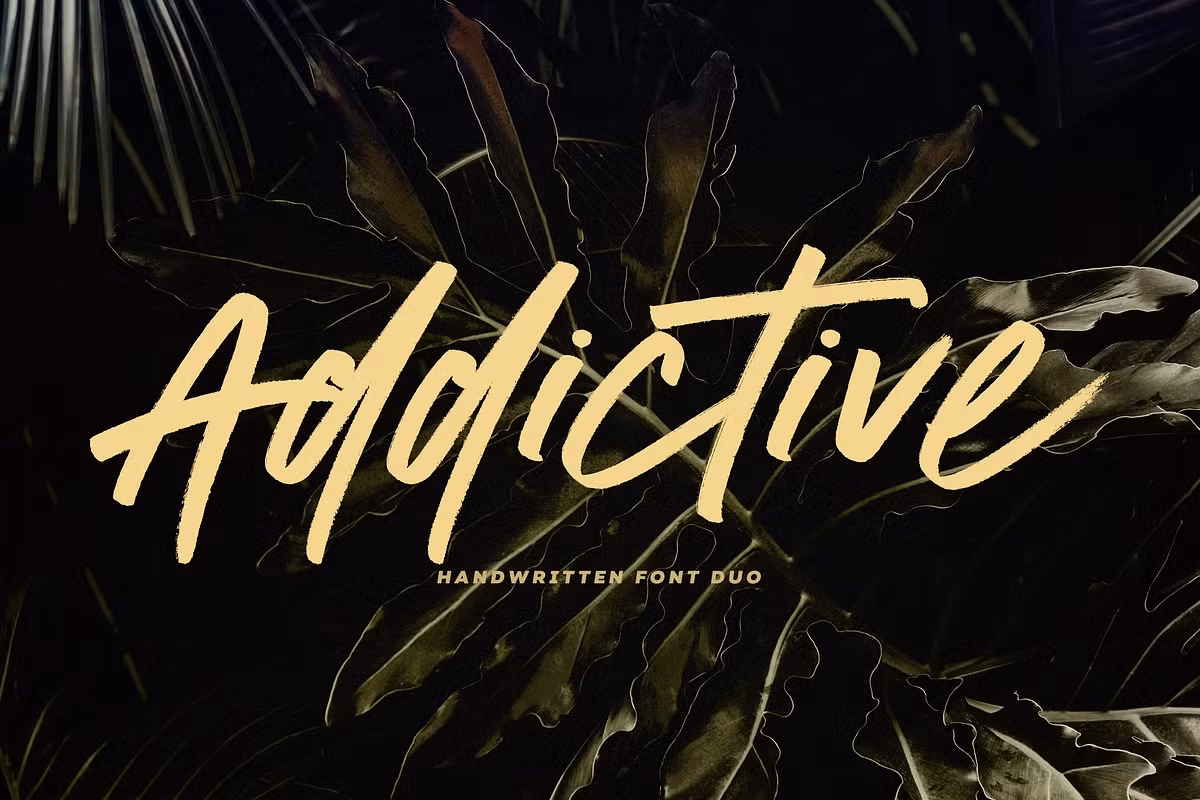
Addictive | Font Duo Free Download
Elevate your design projects with the Addictive | Font Duo Free Download. This versatile pair includes a bold, stylish serif font and a complementary script font, perfect for creating unique, dynamic designs for logos, branding, invitations, social media graphics, and more.
The Serif font offers a strong, modern look, while the Script font adds a personal, elegant touch with its flowing, handwritten style. Together, they provide the ideal balance of structure and creativity, offering ample opportunities to experiment with various design concepts.